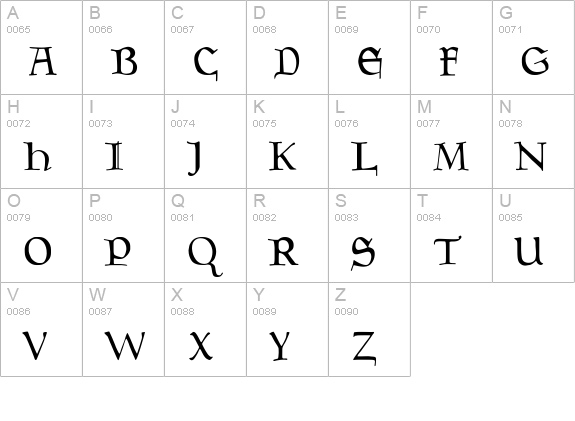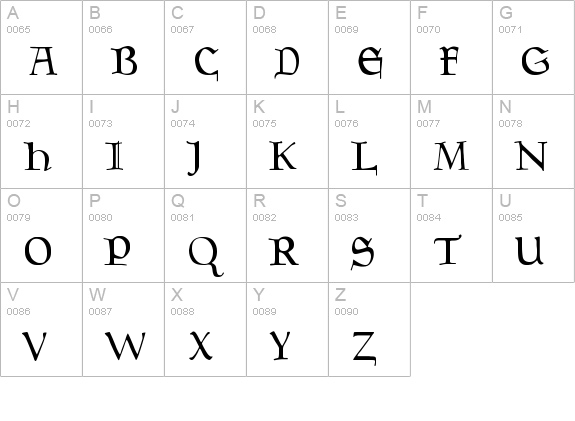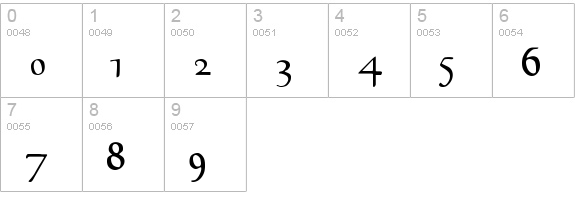
Goudy-Medieval Font Details
Goudy-Medieval font is a timeless and elegant serif typeface that exudes sophistication and charm. With its classic letterforms and intricate details, this font is perfect for adding a touch of old-world charm to your designs. The Goudy-Medieval font is a versatile choice for a wide range of projects, from invitations and wedding stationery to branding and packaging. The best part? Goudy-Medieval font is available for free download at FontsMarket.com. You can easily access this exquisite font and enhance your design projects with its unique and captivating aesthetic. Don't miss out on the opportunity to add a touch of elegance to your creations with the Goudy-Medieval font, now freely available for download.